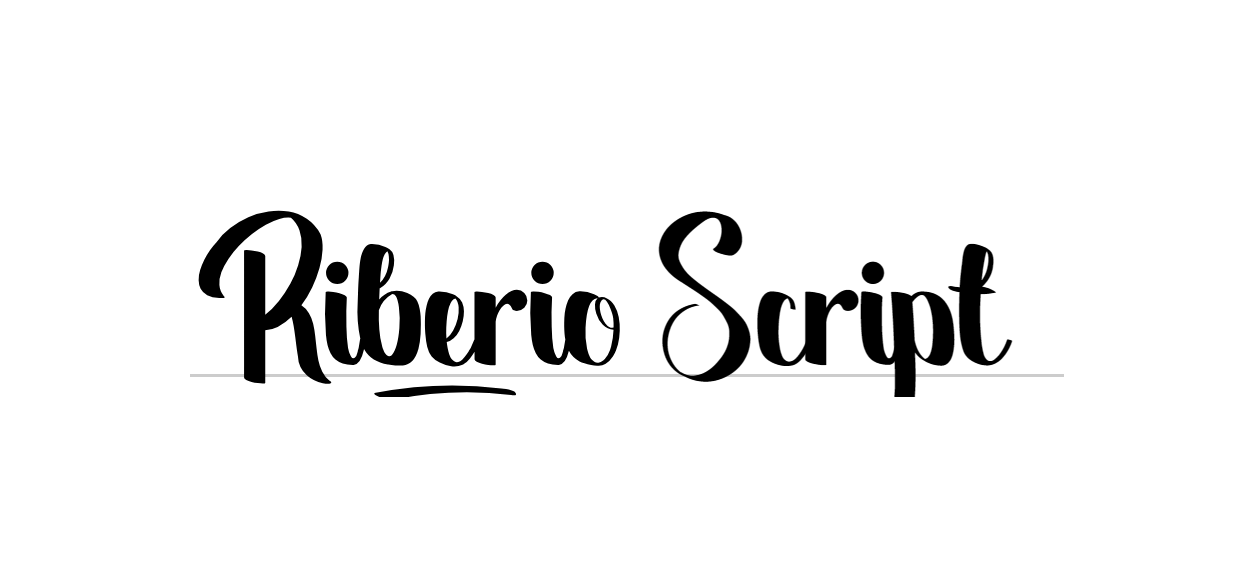
Riberio Script
Riberio Script is a handwritten font created by Shalsha & Sarah SP and released through RaisProject. It has a casual, written-with-a-pen look that makes designs feel personal. You can download it for free and test it with your own words in the preview above.
- Designer: Shalsha & Sarah SP
- Publisher: RaisProject
What You Can Type With Riberio Script
Riberio Script covers the full alphabet in upper and lowercase, plus all ten numbers, so you can set names, dates and prices without switching fonts. Everyday marks like &, !, ? and @ are there too. Thanks to its accented letters, it also works for Spanish, French, German, Portuguese and Italian, not just English.
How to Use the Alternate Letters in Riberio Script
Where Riberio Script Works Best
Think of Riberio Script for greeting cards, journal pages and friendly social posts. Its lowercase letters are small compared to the capitals, so set it a size or two bigger than usual. Set it a bit larger than you would a normal text font. Handwriting styles lose their charm once they get too small to read comfortably.
Yes. Riberio Script includes the accented letters needed for Spanish, French, German, Portuguese and Italian, so it works for more than just English.